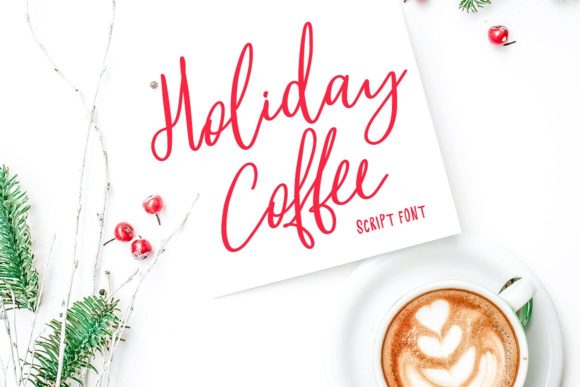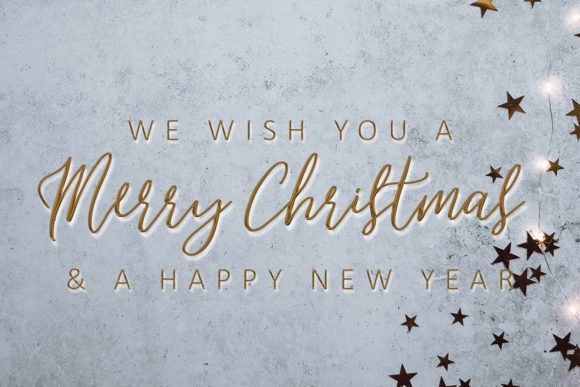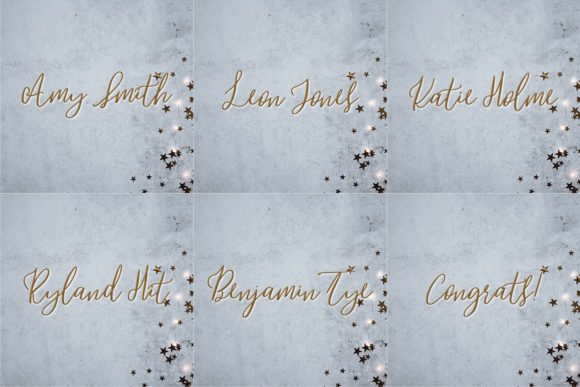
Holiday Coffee Font
About Holiday Coffee Font
The Holiday Coffee is a cute script font. It comes in 3 versions which can be paired together perfectly, giving you the opportunity to create multiple unique designs.